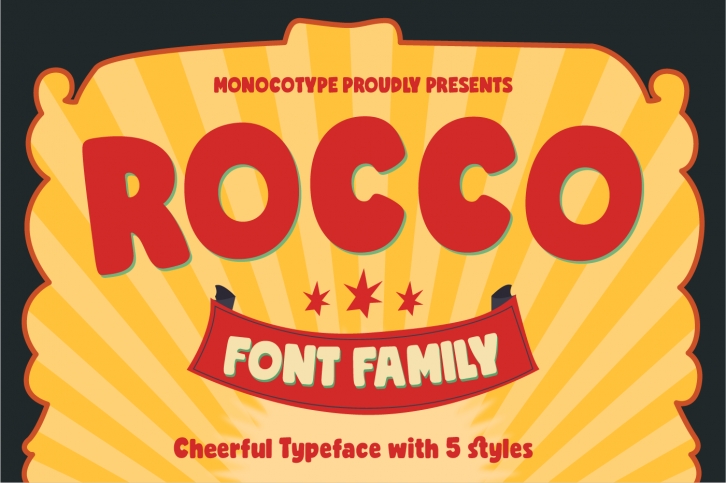
Rocco Family is a trendy and unique font with an authentic style. It was designed by Monocotype Foundry and it's a great choice for creative people who need such a font. It was released on February 16, 2019 and the file size is 1.48 MB. Rocco Family will add an organic vibe to any design idea!